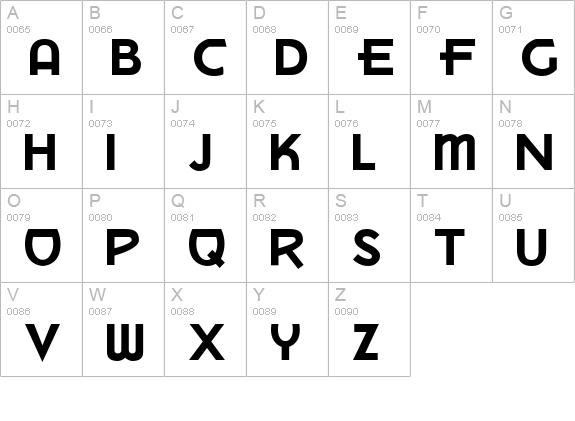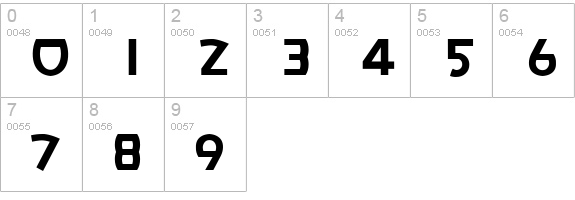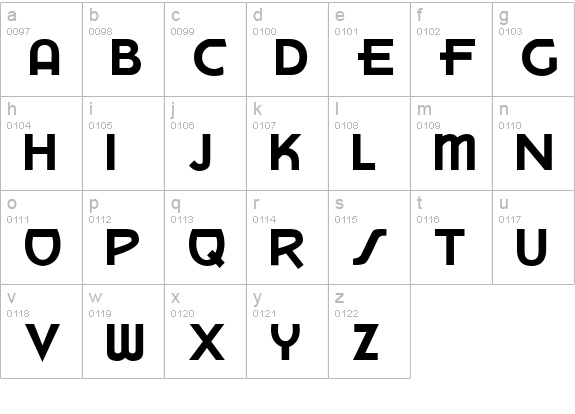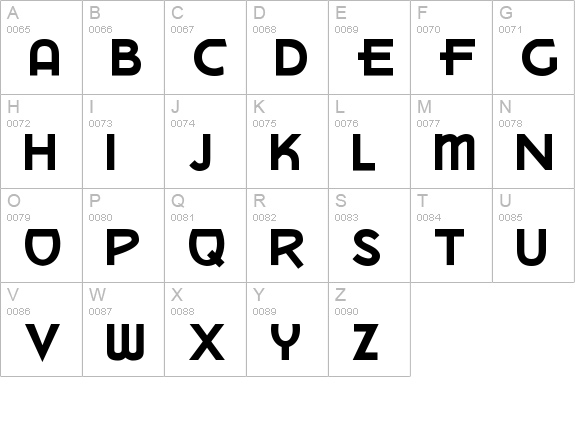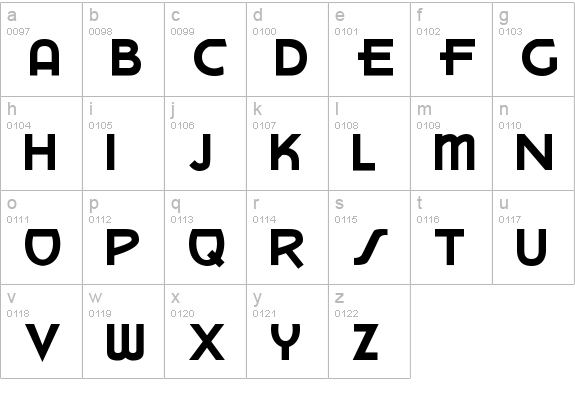
DryCleaners Font Details
Introducing DryCleaners font, a sleek and modern typeface perfect for adding a touch of sophistication to your designs. This elegant font features clean lines and a contemporary style that is sure to make your text stand out. With its versatile look, DryCleaners font is ideal for a wide range of projects, from branding to packaging to signage. The best part? DryCleaners font is completely free to download at FontsMarket.com. Yes, you read that right - you can get your hands on this stunning font at no cost at all. So why wait? Elevate your designs with DryCleaners font today and watch your projects come to life with style and elegance.